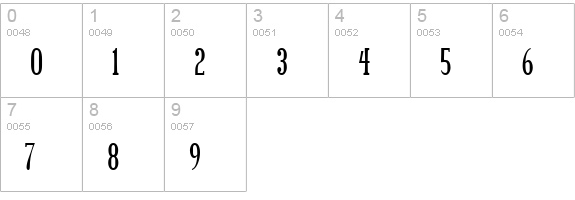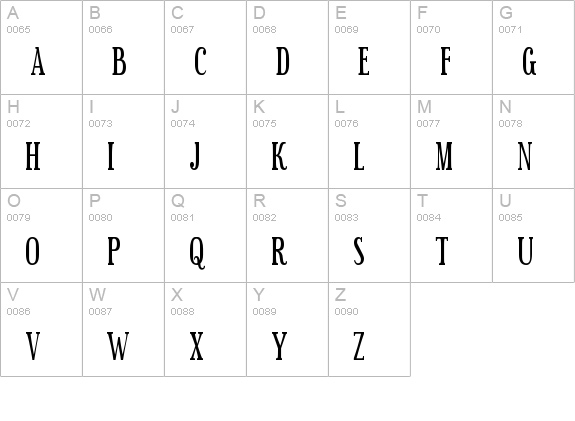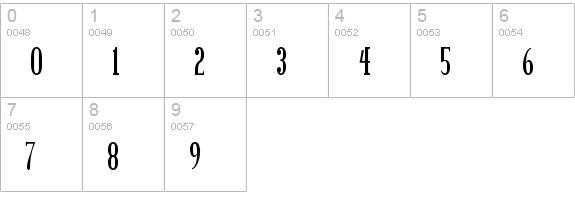
Sexsmith Font Details
Introducing Sexsmith, a beautifully crafted font that effortlessly combines elegance with a touch of modernity. With its sleek and sophisticated design, Sexsmith is perfect for a wide range of creative projects, from branding and logos to packaging and advertising. Featuring clean lines and perfectly balanced letterforms, Sexsmith exudes a sense of timeless beauty that will captivate any audience. Its versatile nature allows it to be used for both headline and body text, making it a truly versatile typeface. But what sets Sexsmith apart is not just its stunning aesthetics, but also its accessibility. This incredible font is freely available to download at FontsMarket.com, ensuring that anyone can add a touch of elegance to their designs without breaking the bank. Whether you're a professional designer or a passionate enthusiast, Sexsmith allows you to create stunning visuals with ease. With a wide range of weights and styles, Sexsmith offers endless possibilities for creative expression. From the delicate and refined Light weight to the bold and impactful Black weight, this font has something for every project and purpose. Its extensive character set also includes multilingual support, ensuring that your message can be conveyed seamlessly across different languages and cultures. Whether you're designing a logo for a luxury brand, creating an eye-catching poster, or crafting a stylish website, Sexsmith is the perfect companion to bring your vision to life. So why wait? Download Sexsmith for free at FontsMarket.com and unlock the power of elegant typography today.